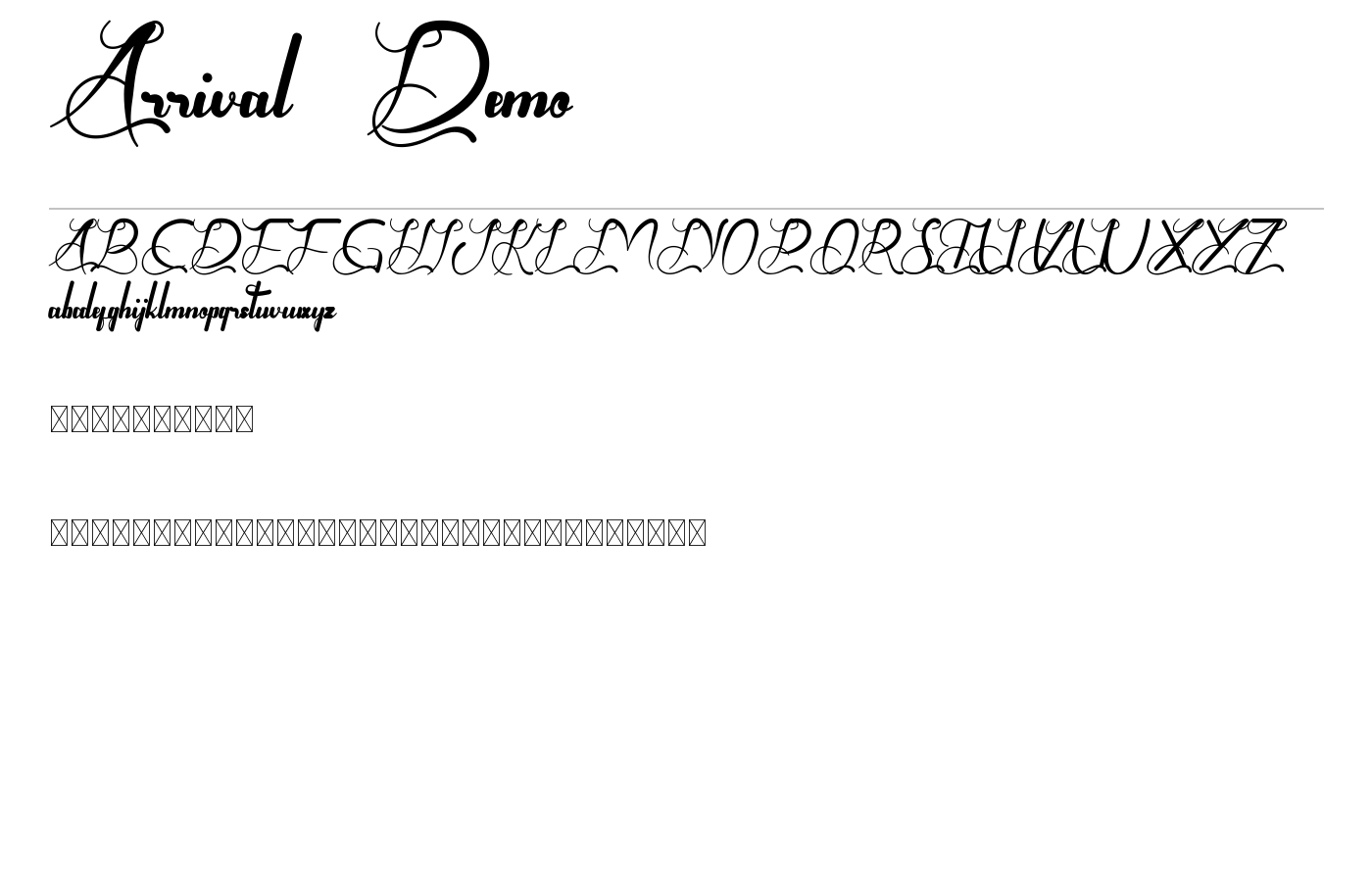
Arrival Demo is an elegant script font characterized by its flowing, decorative uppercase letters with intricate swashes and a bold, smooth lowercase style. This font exudes a vintage, luxurious charm, making it ideal for sophisticated branding, invitations, and headlines where a dramatic yet refined touch is desired. Its unique letterforms and ornamental details help convey a sense of elegance and personalization, perfect for fashion, beauty, and upscale event designs.
Arrival Demo Font
About Arrival Demo Font
| Font family | Arrival Demo Font |
| Designer | M.Lukman & Sarah Suci P |